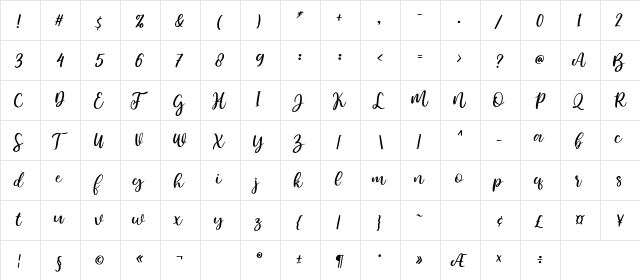
Bamella Italic
| Foundry | Alit Design |
| Designer | Alit Suarnegara |
Design Context for Bamella Typeface
Bamella is a composed and adaptable typeface that performs quietly and consistently across a wide range of design contexts. The slanted form adds forward momentum and visual energy.